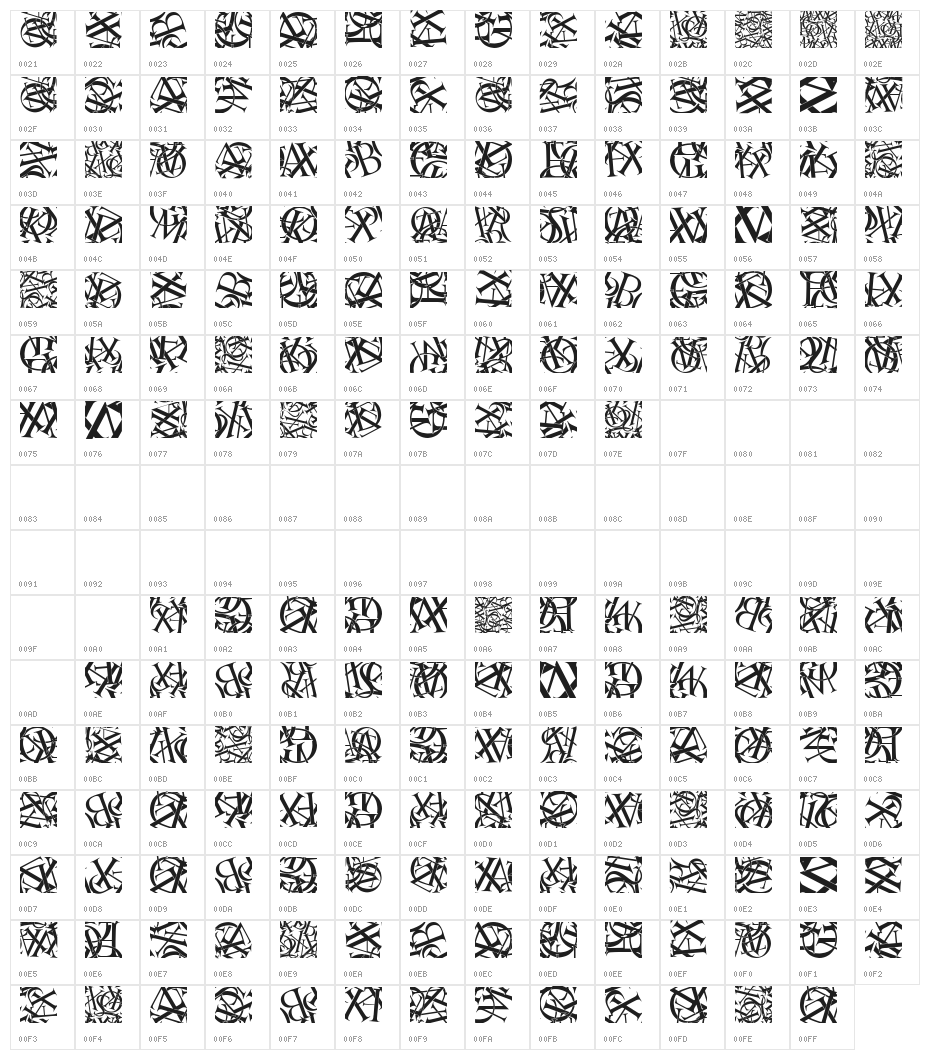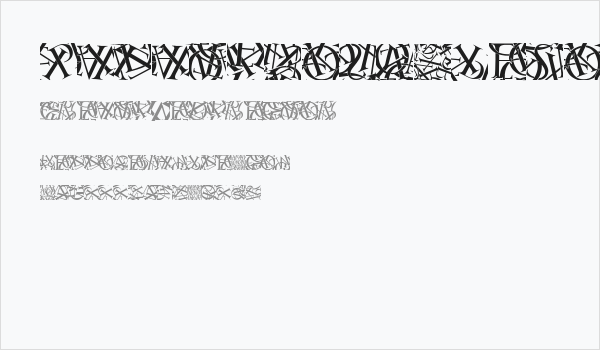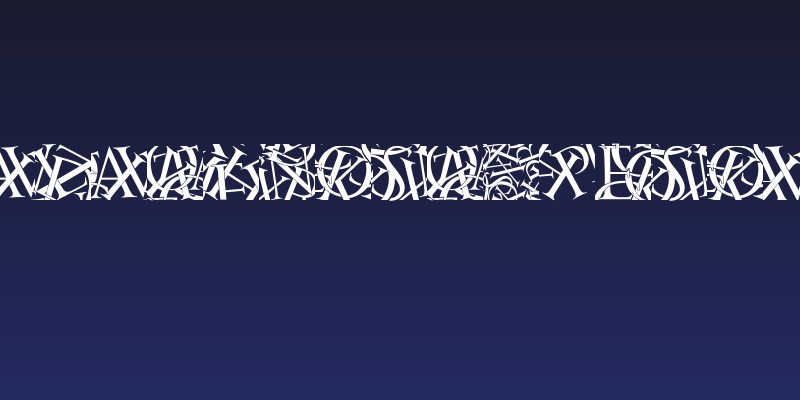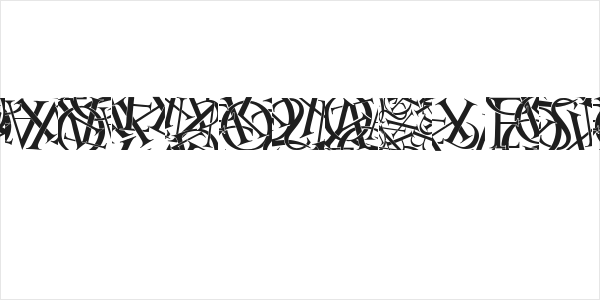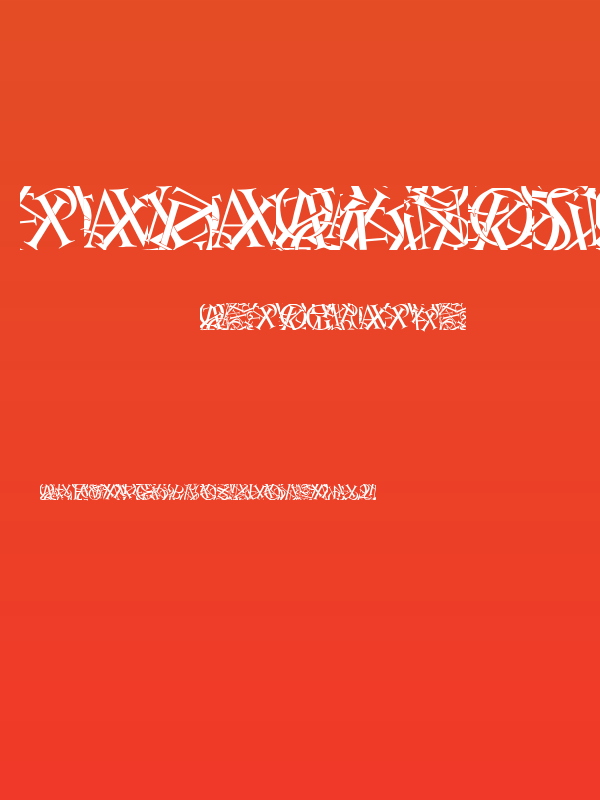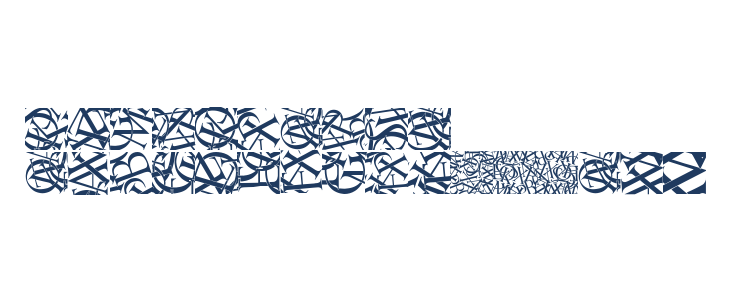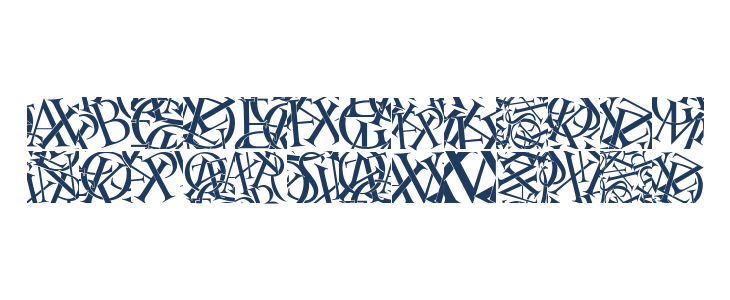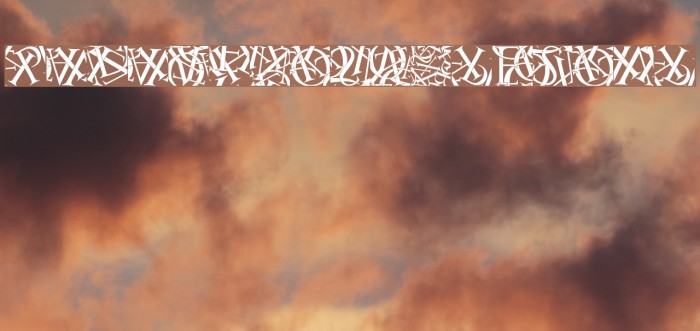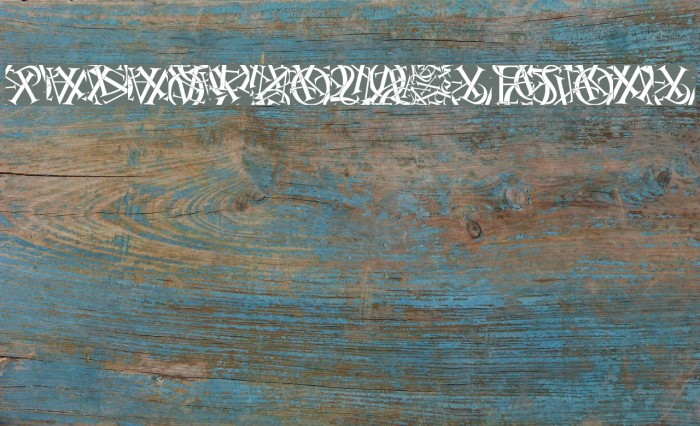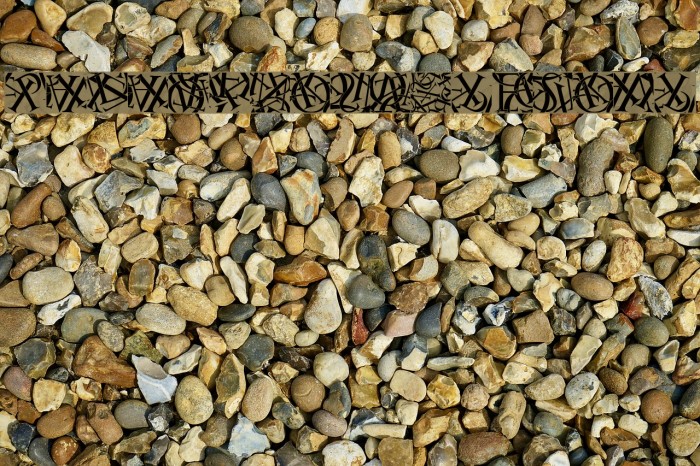
PalatinosTypeSoup Font
PalatinosTypeSoup Description
This font presents an abstract and chaotic design, with overlapping and interwoven strokes creating a complex visual texture. The characters are heavily stylized, making them difficult to distinguish individually. The overall appearance is artistic and experimental, resembling a collage of lines and shapes rather than traditional letterforms. This style is not suitable for readability but offers a unique aesthetic for creative projects.
| Overall Style | Abstract, Experimental |
| Use Case | Art installations, Experimental design |
| Proposed Projects | Ideal for abstract art pieces, experimental graphic design, and creative installations where readability is not a priority. |